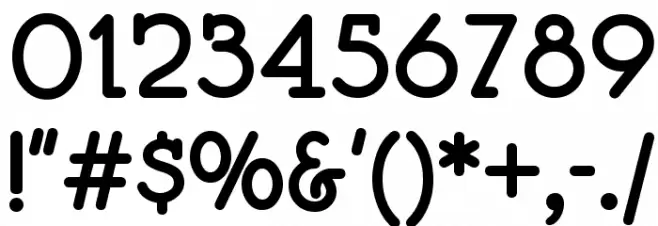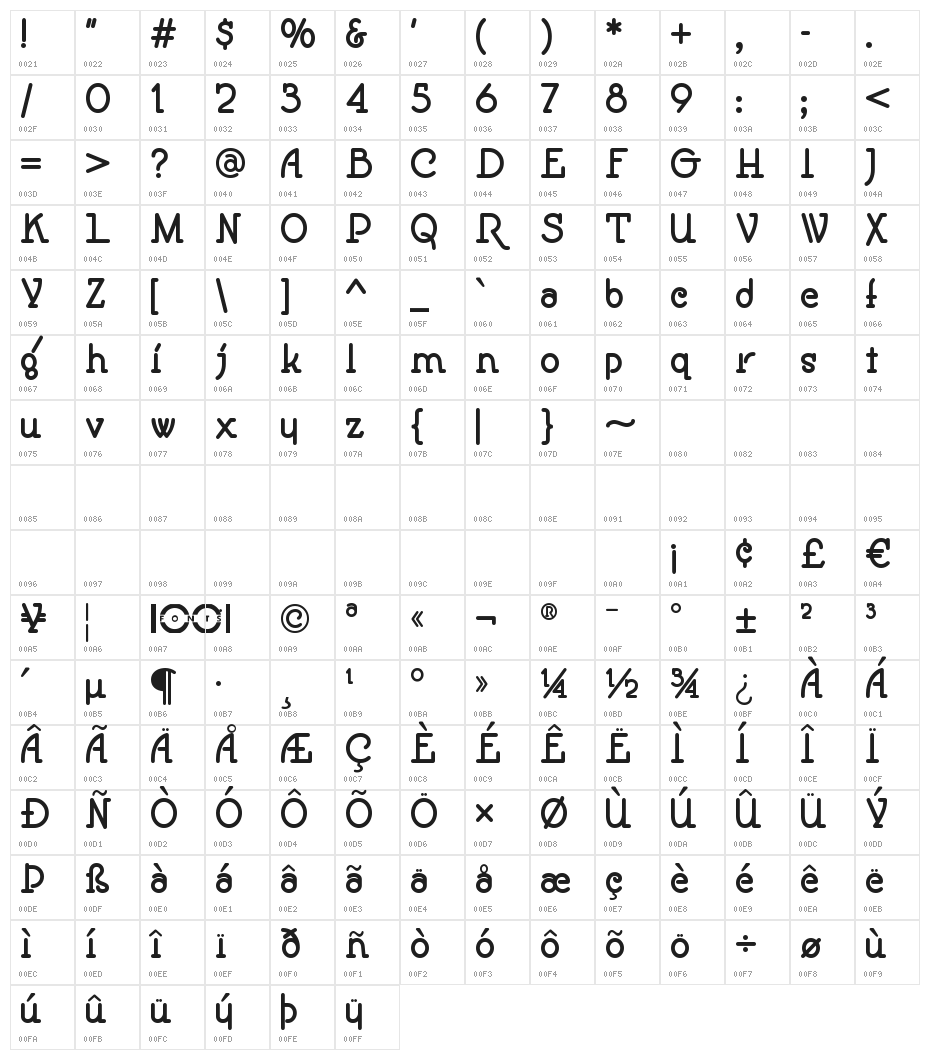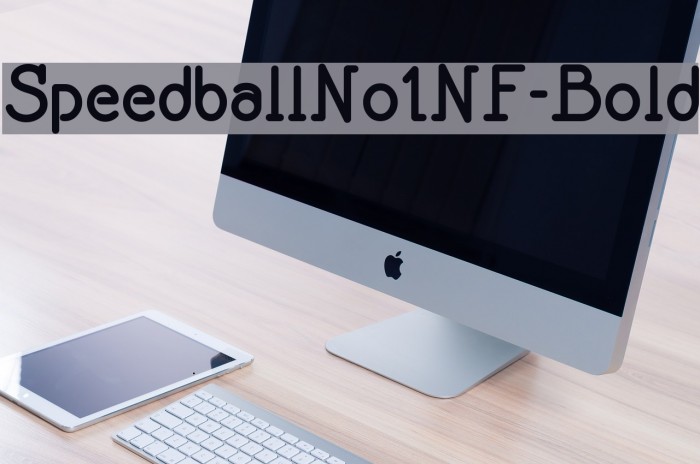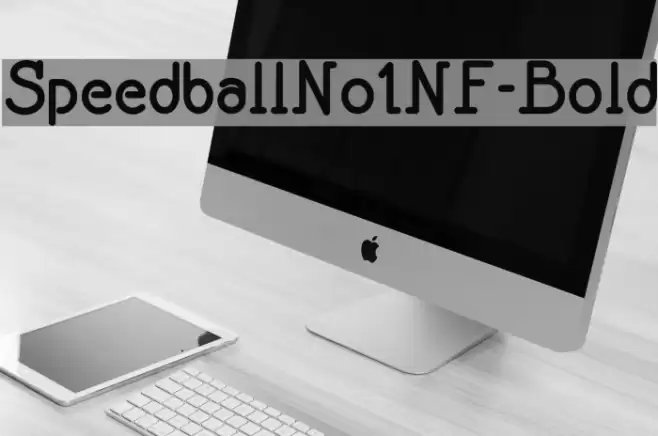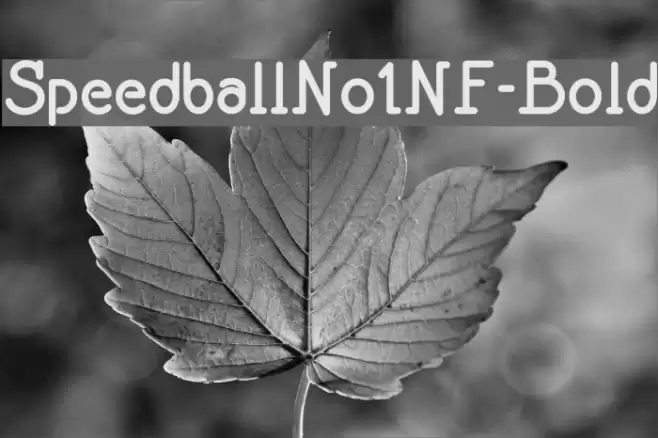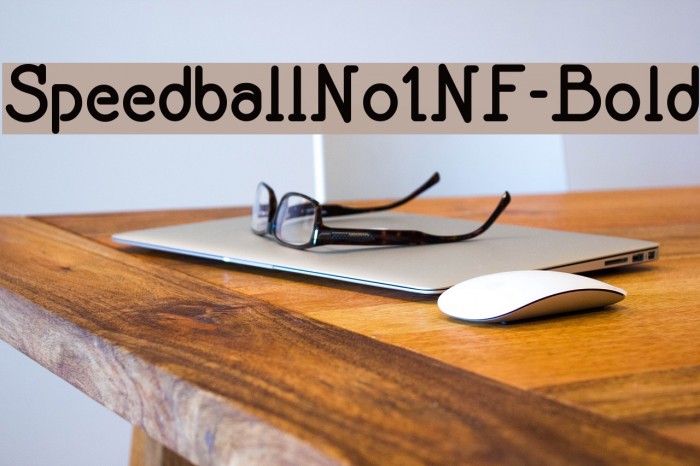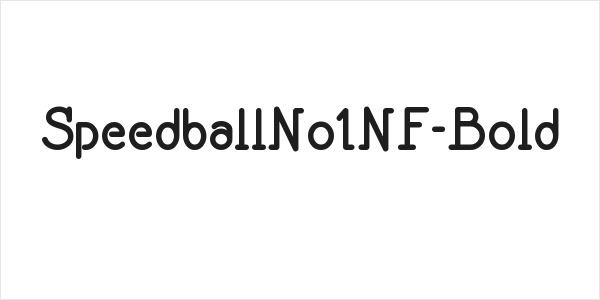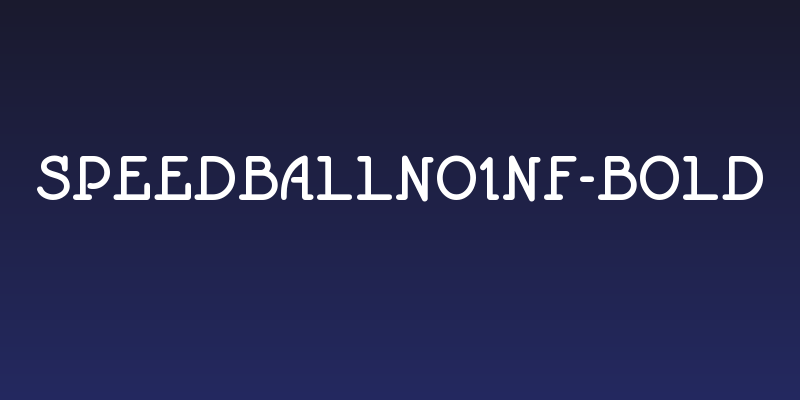
SpeedballNo1NF-Bold Font
SpeedballNo1NF-Bold Description
This font features a playful and rounded style with a bold weight, making it stand out with its unique character. The letters have a slightly whimsical appearance, with curved terminals and a consistent stroke width that adds to its charm. The numerals and special characters follow the same design ethos, ensuring uniformity across all glyphs. Its boldness and rounded edges make it suitable for projects that require a friendly and approachable feel. The font's design is both modern and slightly retro, appealing to a wide range of audiences.
| Overall Style | Playful, Modern |
| Proposed Projects | Ideal for children's books, playful branding, posters, and social media graphics. |